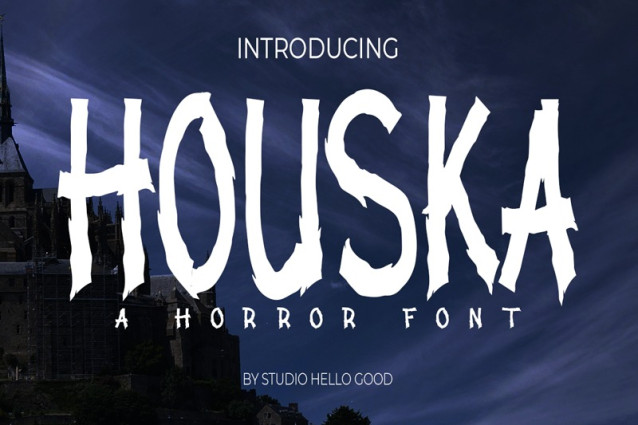
Houska Font
Houska Font is a simple and modern display font suitable for quotes, logos, headings, titles, and many more. Use it on any of your creative projects, and your designs will become outstanding!